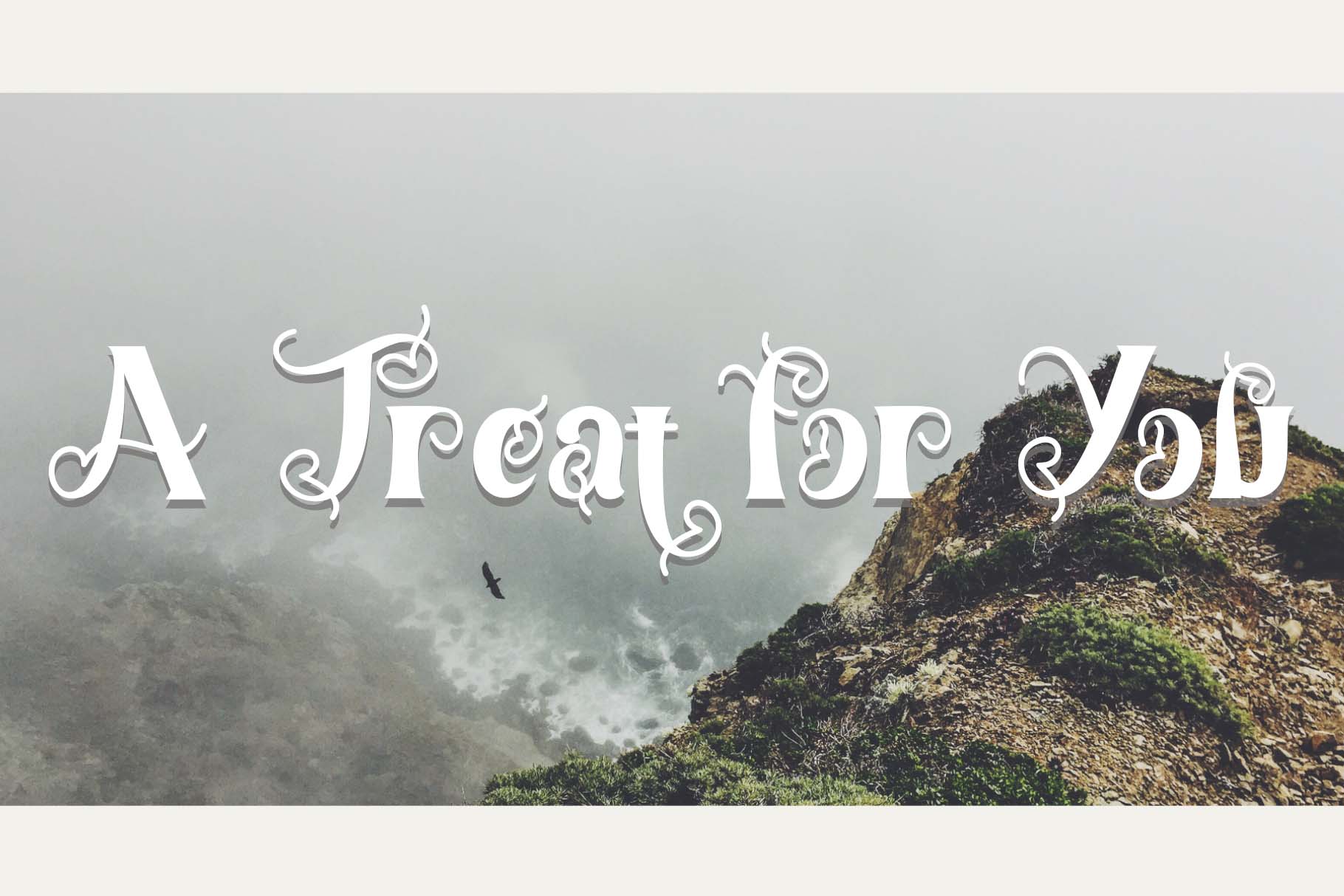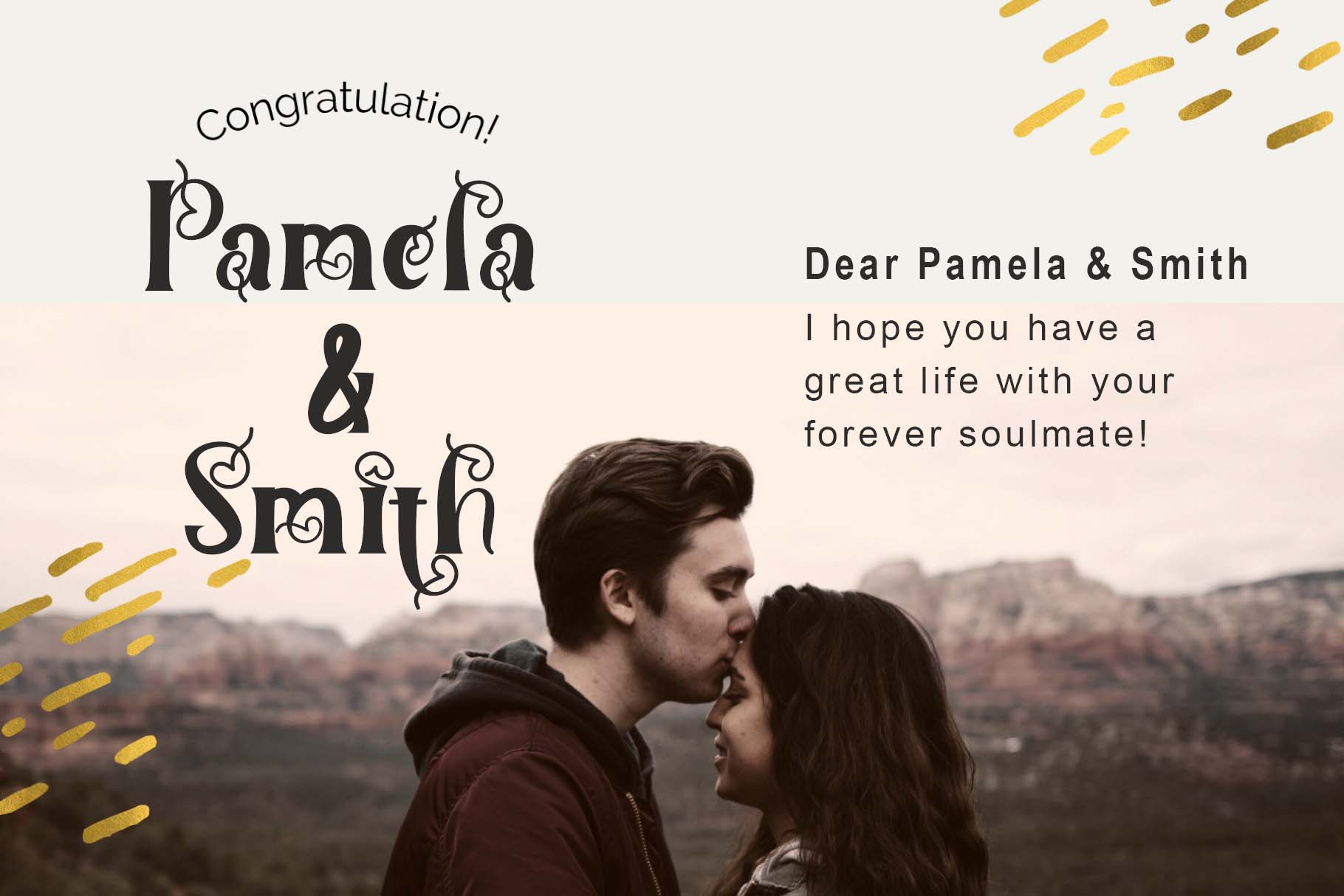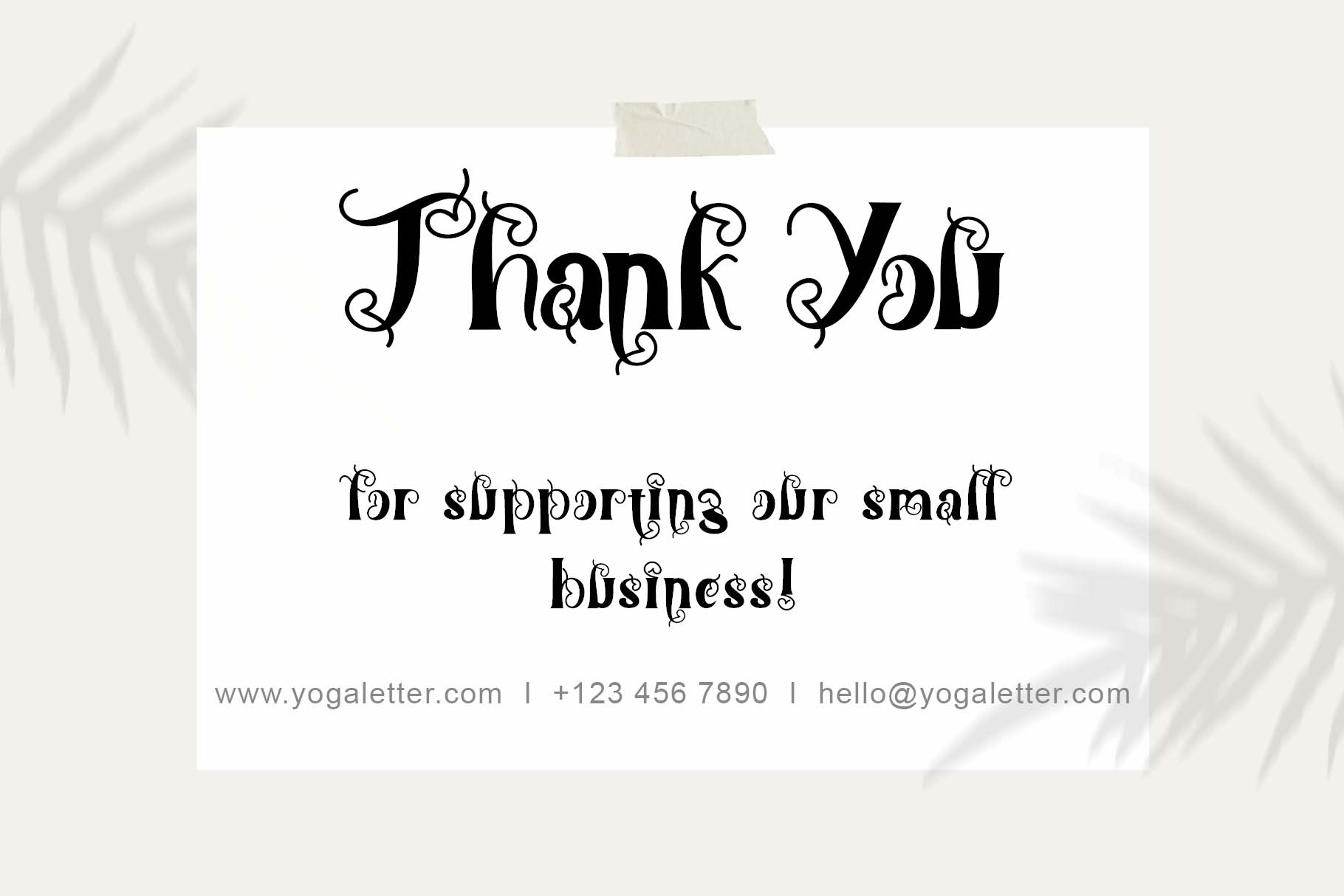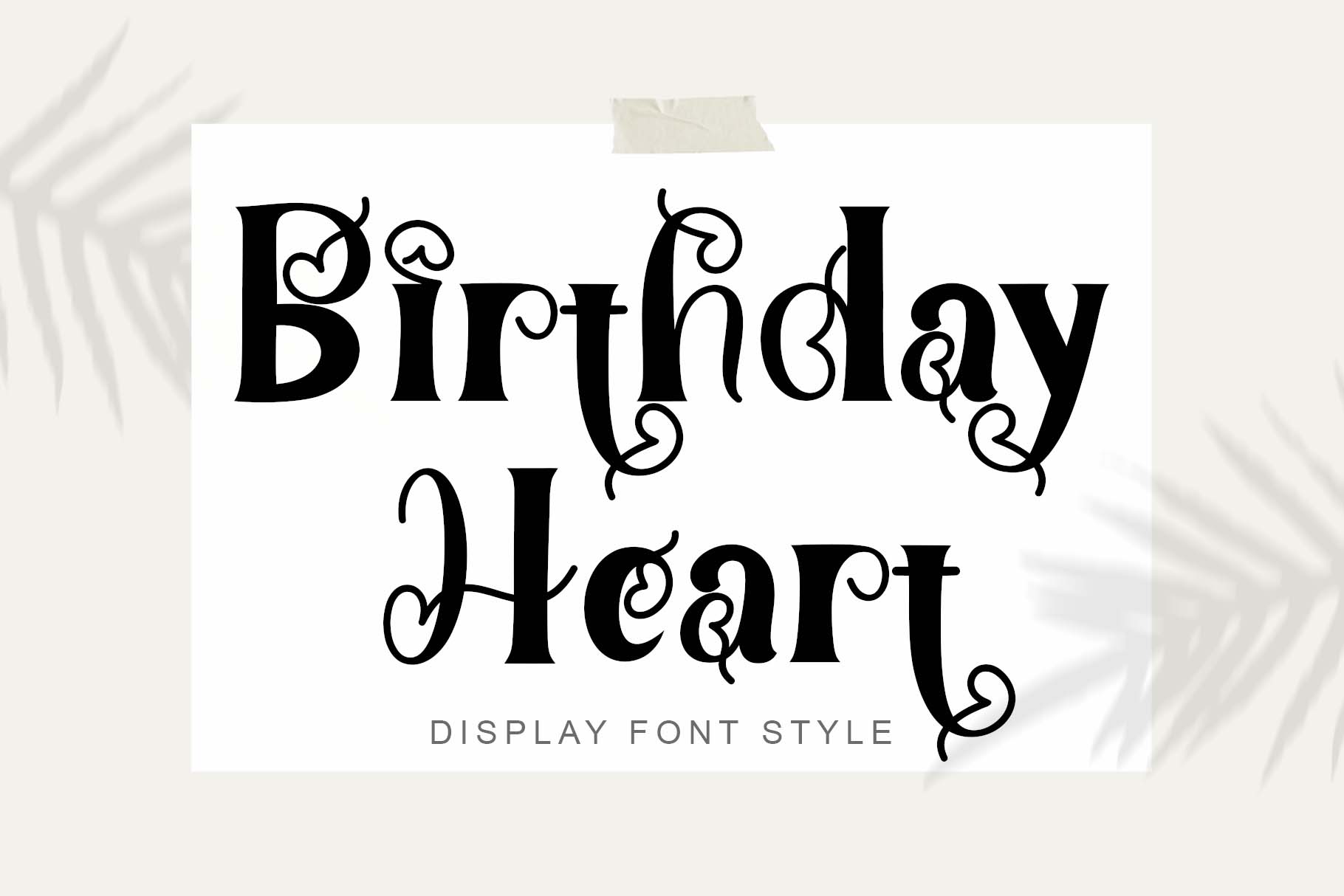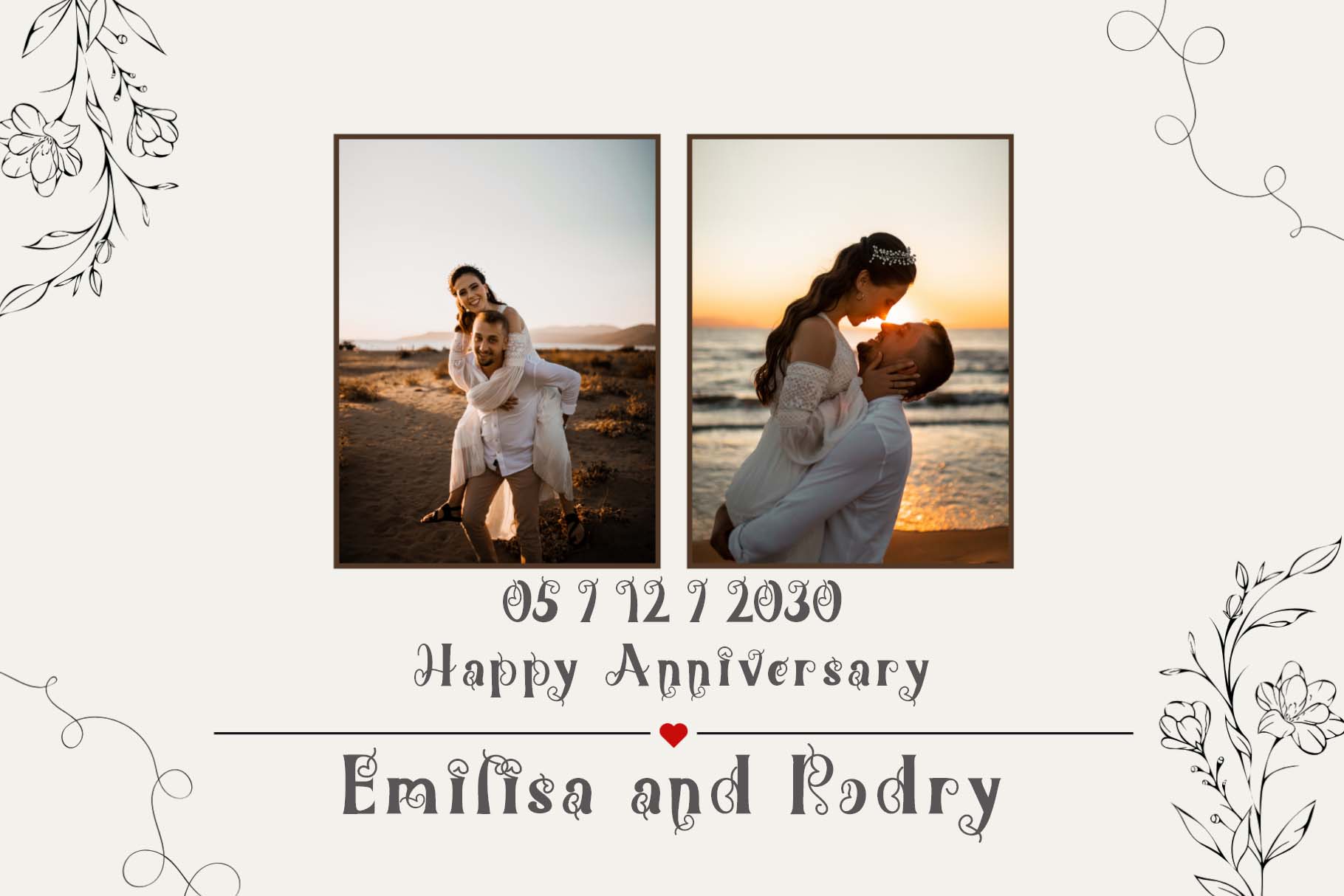
Birthday Heart Font
Birthday Heart Font is a charming and playful typeface that blends elegant curves with heart-shaped accents, perfect for celebratory designs. Ideal for birthday invitations, greeting cards, and romantic themes, it adds a sweet, handwritten touch. With its smooth, flowing letters and love-inspired details, this font radiates warmth and joy, making every message feel extra special.